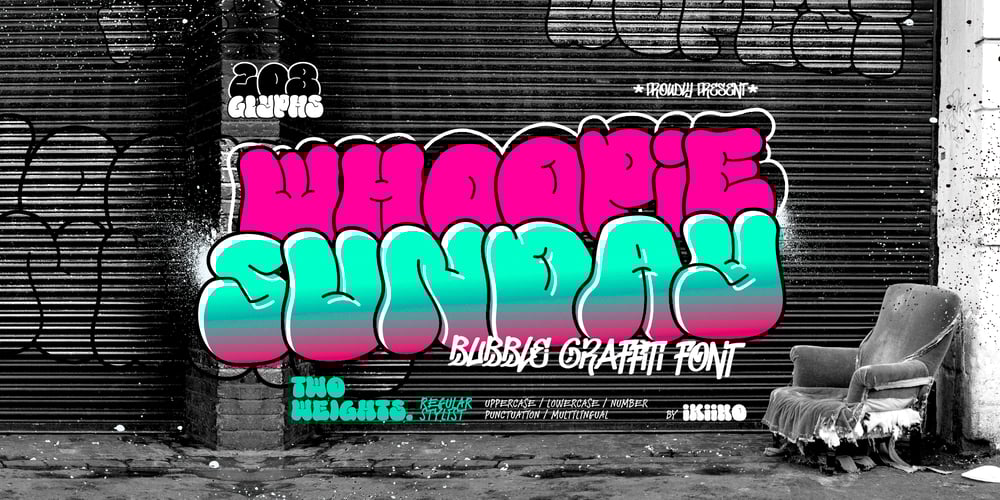
Whoopie Sunday Font Family was designed by Andhika Pradana and published by IKIIKOWRK. Whoopie Sunday contains 2 styles and family package options. Proudly present Whoopie Sunday – Bubble Graffiti Font, created by ikiiko.The vibrant bubble graffiti font Whoopie Sunday unleashes the energy of the streets with each character. This font, which is bold, edgy, and dripping with street attitude, explodes with urban vitality and inventiveness. This font has 2 types, namely regular and stylist. By using the stylist font, you can explore by playing with colors and outlinesGet SPECIAL OFFER and Freebies : www.ikiiko.comcontact : ikiikowrk@gmail.com